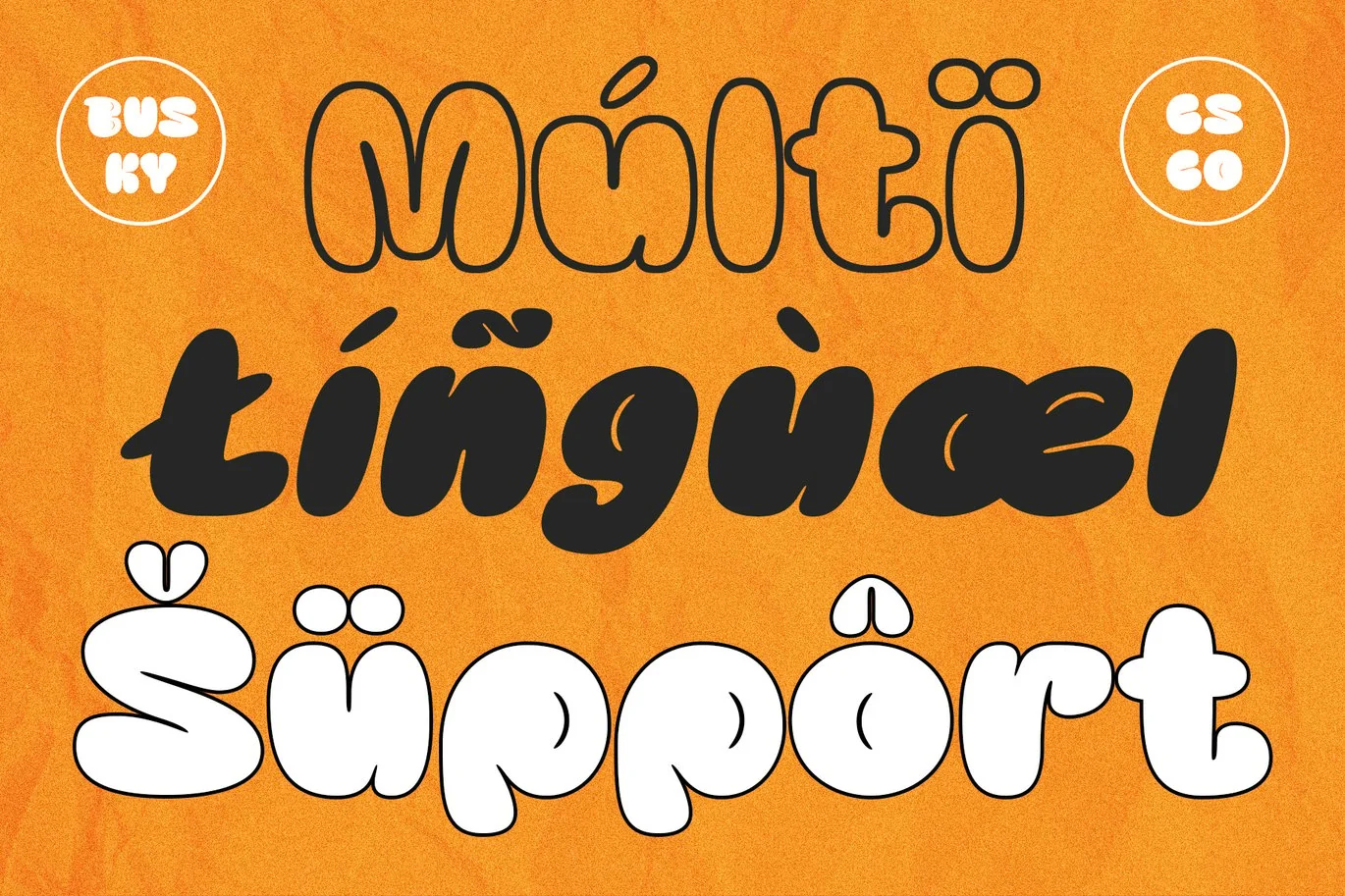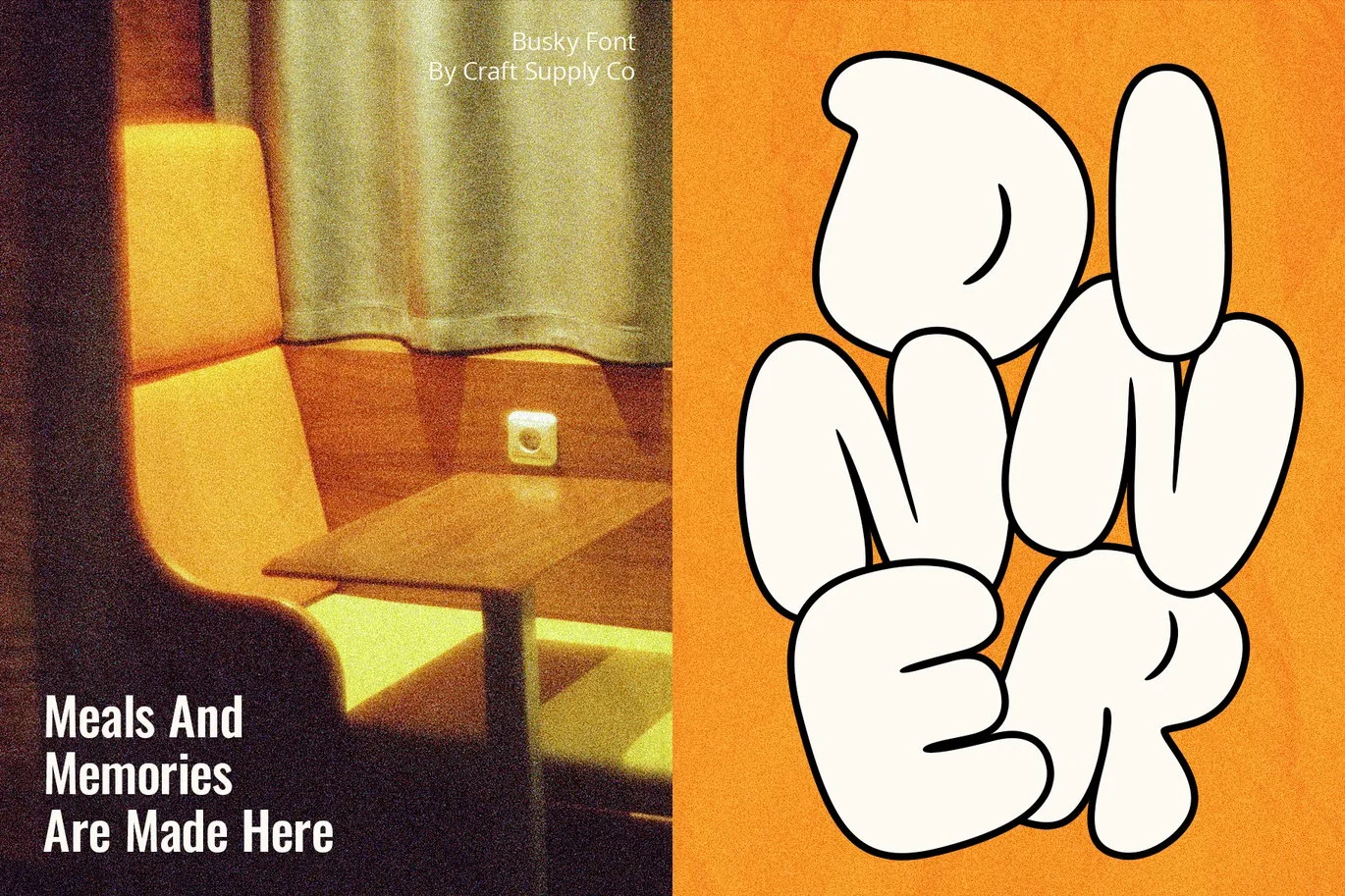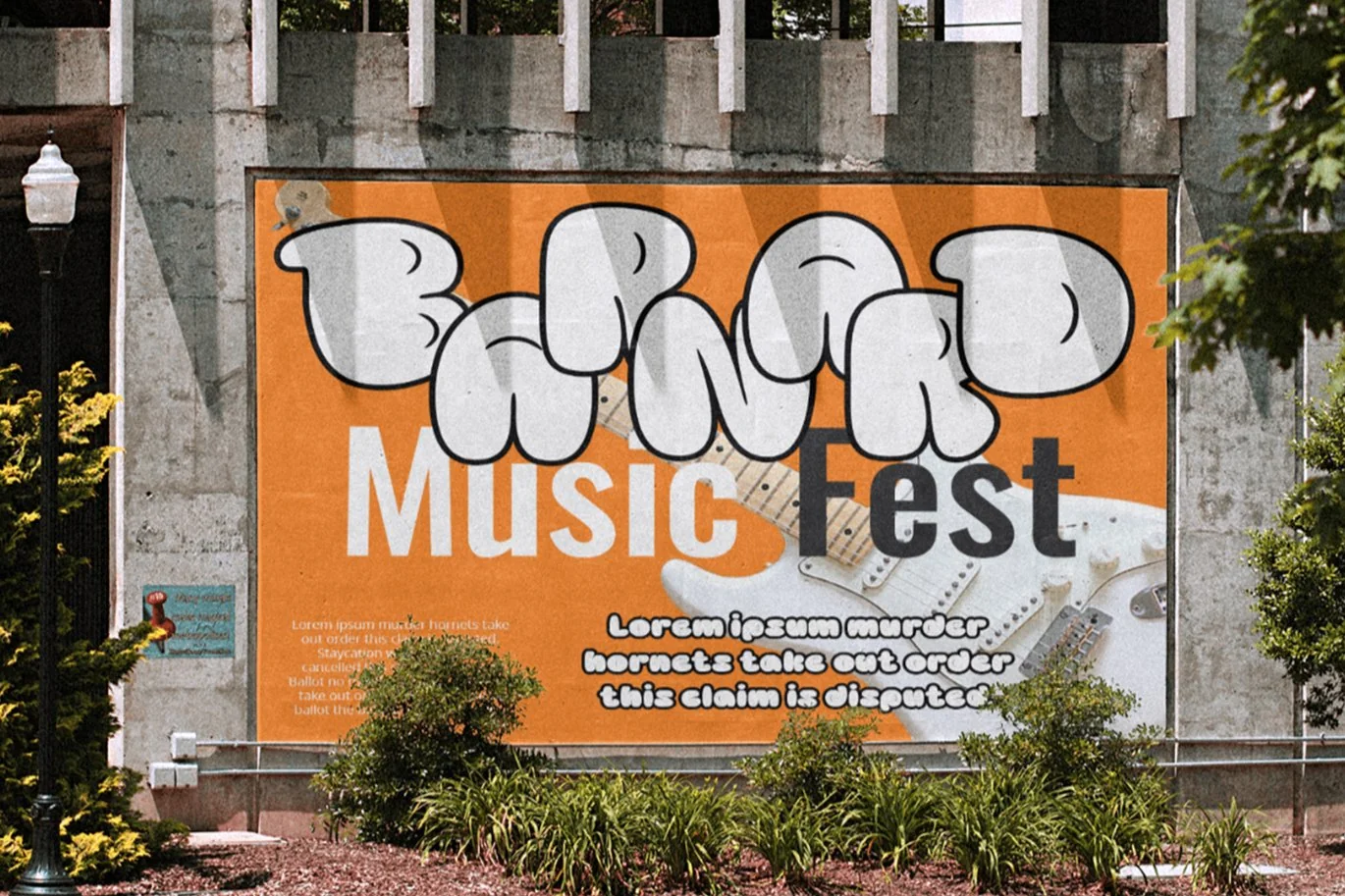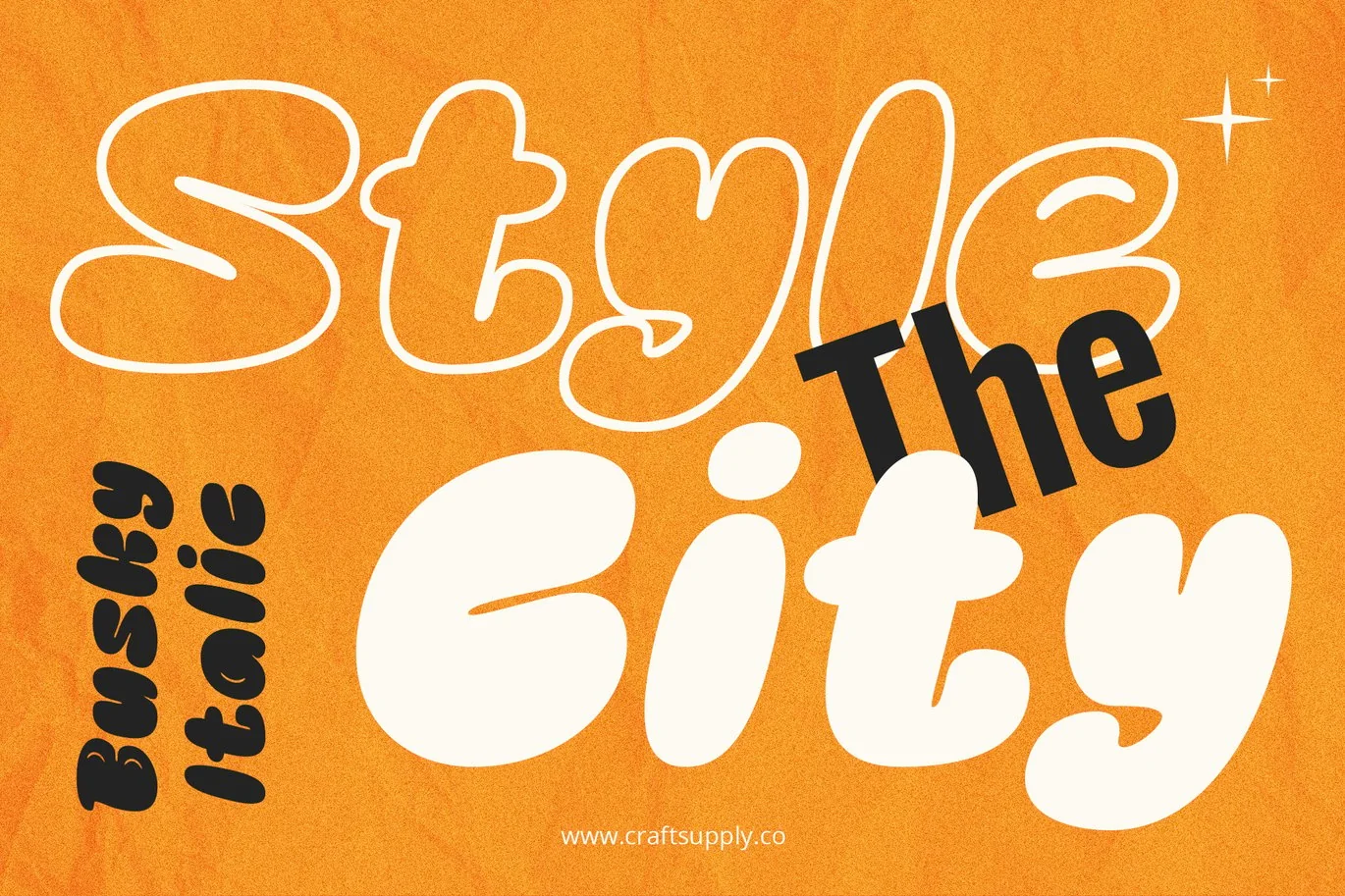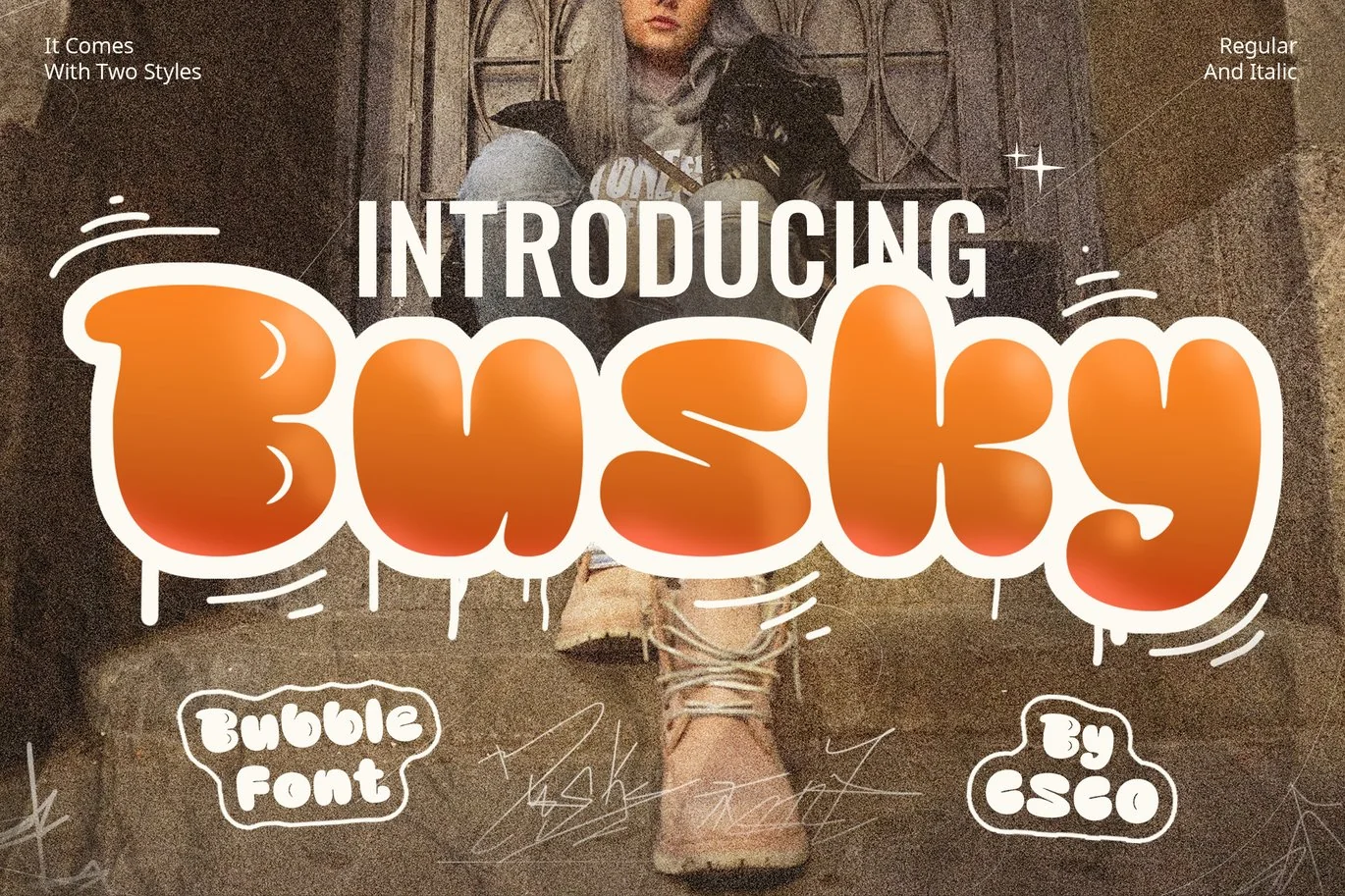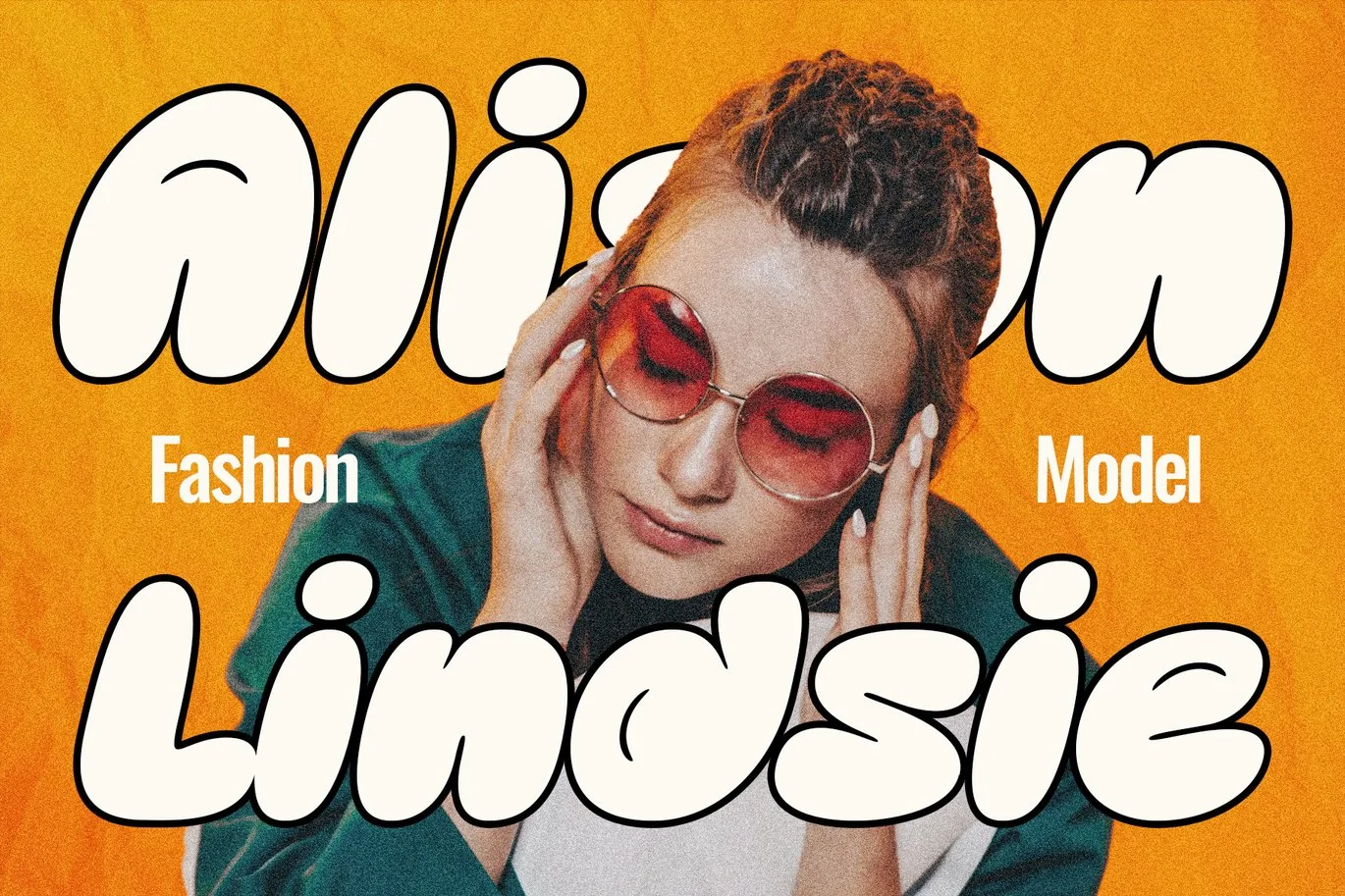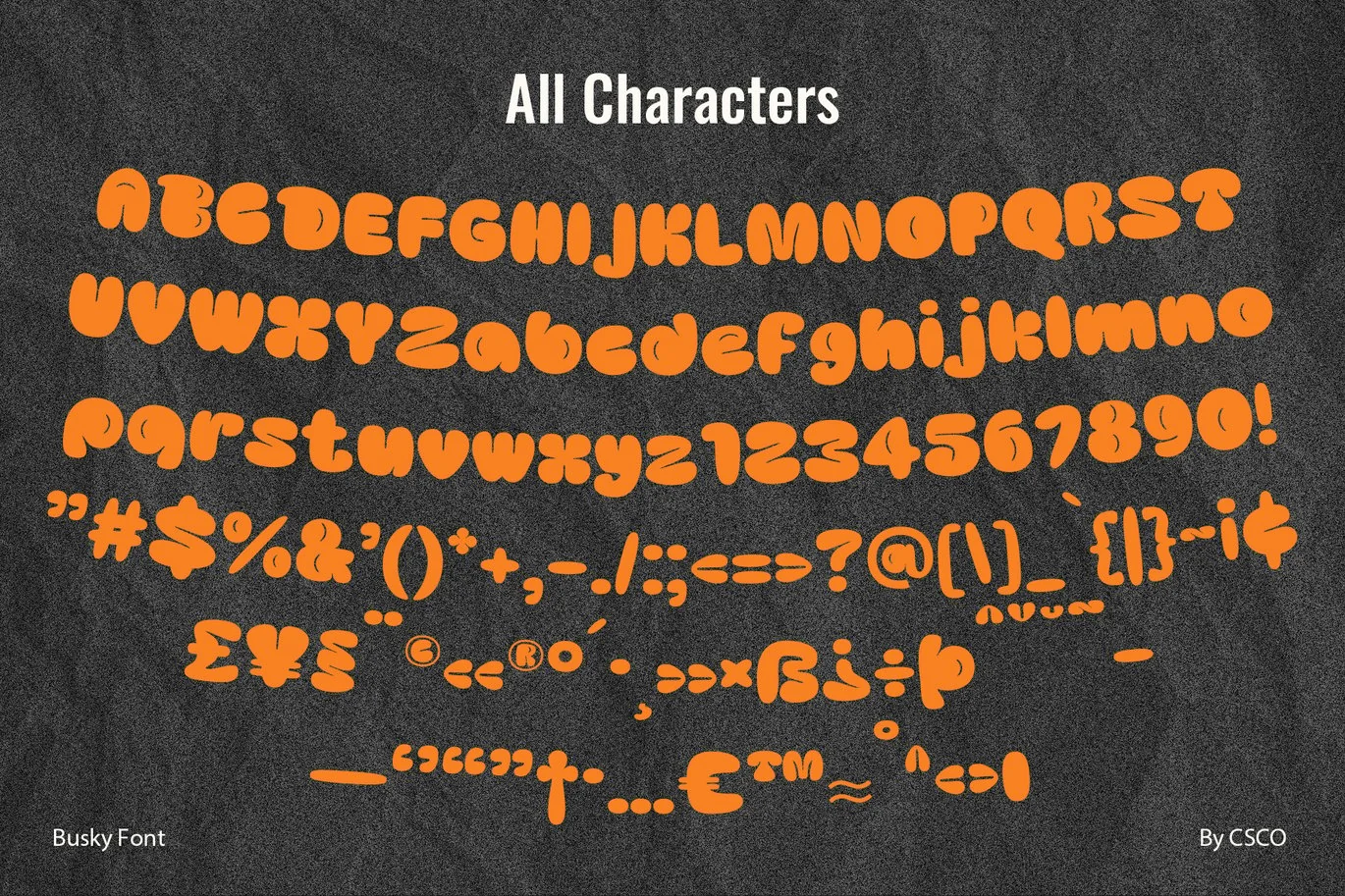
Busky – Graffiti bubble font
Urban Graffiti Font Busky
Introduction
Meet Urban Graffiti Font Busky, a vibrant display font inspired by street art. This font captures the essence of graffiti culture. It’s perfect for adding a playful touch to your designs. Busky’s bold and lively appearance is sure to grab attention.
Design and Style
Busky features bubble letter forms, giving it a fun and bouncy feel. Each character is crafted to resemble graffiti bubbles. The font’s rounded edges convey a sense of movement and fluidity. This style is ideal for projects needing a touch of urban flair.
Accessibility and Appeal
Designed for broad appeal, Busky avoids complex vocabulary. Its simplicity ensures it’s accessible to a wide audience. The font’s graffiti-inspired design connects with diverse age groups. Busky is a must-have for designers seeking a fresh, urban look.
Busky Regular
Busky Italic
Uppercase and lowercase characters
Accents (Supports Multilingual Characters)